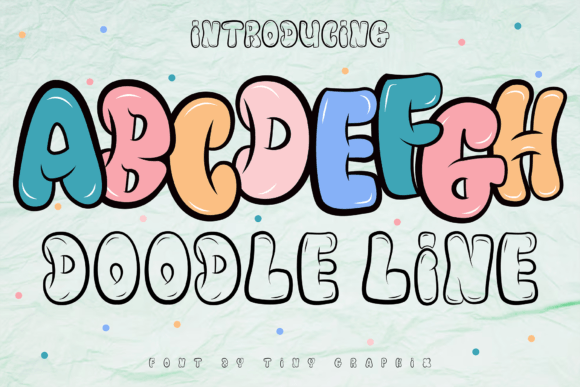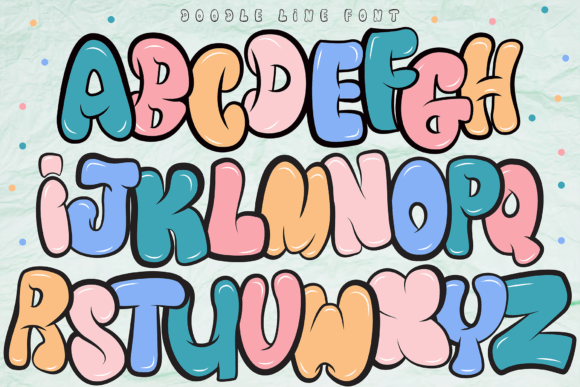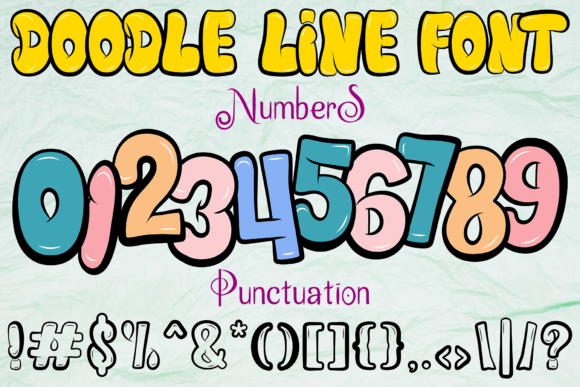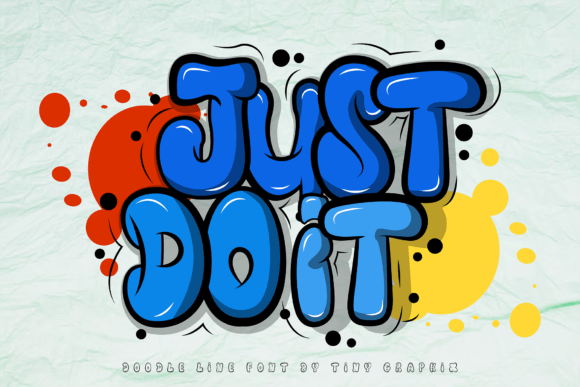
Doodle Line Font
About the Doodle Line Font
Unleash your creativity with Doodle Line Font, a versatile font perfect for a wide range of applications. Elevate your designs with Urban Revolution, our graffiti font that combines bold, dynamic lines with an authentic street art vibe. Perfect for grabbing attention and making a statement in any project. The DOODLE LINE FONT is a unique and fun graffiti display font, ideal for branding, and logo designs, and especially great for games. It’s perfect for cartoons, branding, and logos, giving you a modern and cool look.
Doodle Line Font’s bold, playful energy makes it ideal for headlines, posters, and short impactful text in branding projects targeting a young, energetic demographic. It excels in creating eye-catching logos and game interfaces, adding a vibrant, street-smart aesthetic. However, its strong character and irregular letterforms make it unsuitable for body text or UI elements requiring high readability.
Consider pairing Doodle Line with a clean sans-serif like Open Sans for contrast, balancing its raw energy with a touch of sophistication. Alternatively, a geometric sans-serif such as Montserrat could offer a modern, structured counterpoint. For a more playful approach, a rounded sans-serif would enhance the fun, friendly vibe.
Avoid using it in situations demanding formal elegance or high readability over long stretches of text. Its rebellious, modern personality ensures it will always be a statement piece, not a background player.
Doodle Line Font Usage Examples
Doodle Line Font Example